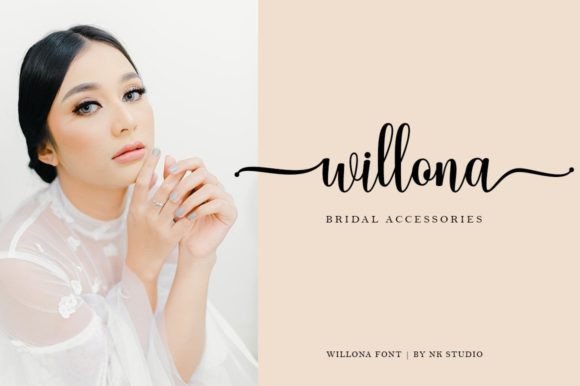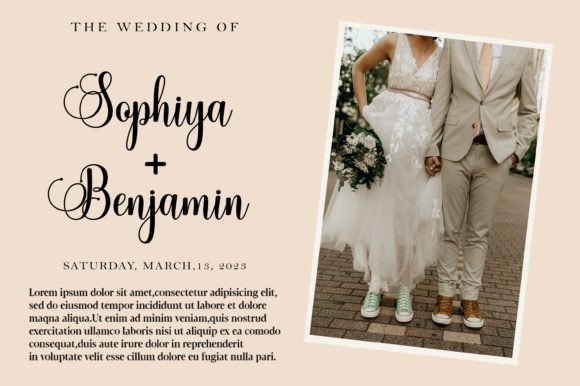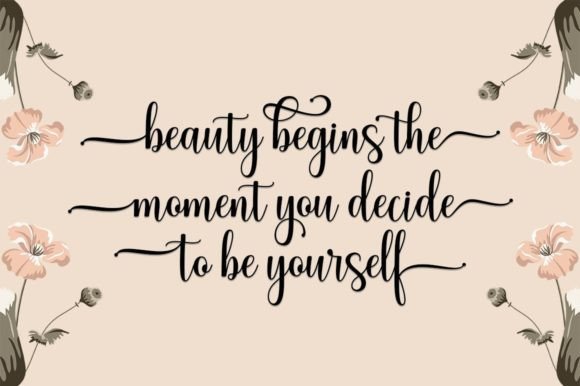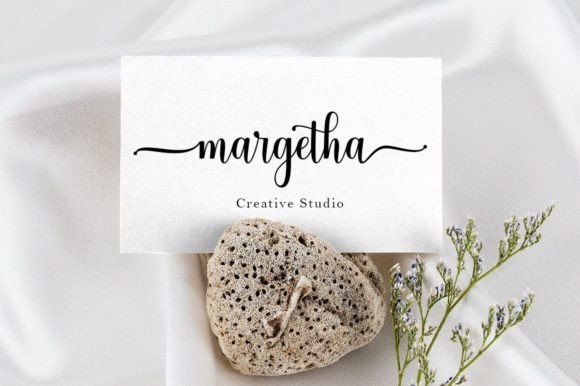
About Willona Font
“Willona is a font that effortlessly embodies subtlety and elegance. Its delicate and charming character makes it a perfect choice for a wide range of designs, adding a touch of sophistication to any creative project. With its varied baselines, unique smooth lines, and stunning alternatives, Willona offers a lovely touch of character that elevates your designs to new heights.
What sets Willona apart is its ability to create art through typography. The font’s subtle elegance and graceful curves make it ideal for projects that require a refined and sophisticated aesthetic. Whether you’re designing wedding invitations, branding materials, packaging, quotes, social media graphics, or any other creative endeavor, Willona infuses your designs with a sense of beauty and creativity.
Willona’s versatility shines through in its varied baselines and stunning alternatives. These features allow you to experiment with different letter combinations and decorative elements, adding a unique and personalized touch to your designs. The font’s smooth lines and subtle details create a visually pleasing experience, enhancing readability while captivating the viewer’s eye.
One of the standout features of Willona is its PUA encoding. With this encoding, you can easily access all the glyphs and swashes, unlocking a world of design possibilities. Whether you’re embellishing your branding with custom logos or adding artistic flair to your invitations, Willona’s PUA encoding simplifies the creative process, allowing you to achieve a polished and professional look effortlessly.
Incorporating Willona into your creative ideas is like adding a brushstroke of elegance and creativity. Its subtle and elegant script enhances your designs, transforming them into artistic expressions that captivate and inspire. Whether you’re a professional designer or an enthusiast, Willona empowers you to infuse your projects with a touch of sophistication and charm, making them truly memorable.
Willona is more than just a font; it’s a canvas for creativity and artistic expression. Its subtle elegance, combined with its accessibility through PUA encoding, makes it an invaluable addition to any design toolkit. Embrace the beauty of Willona and let your imagination flow, creating art that resonates with viewers and leaves a lasting impression.”